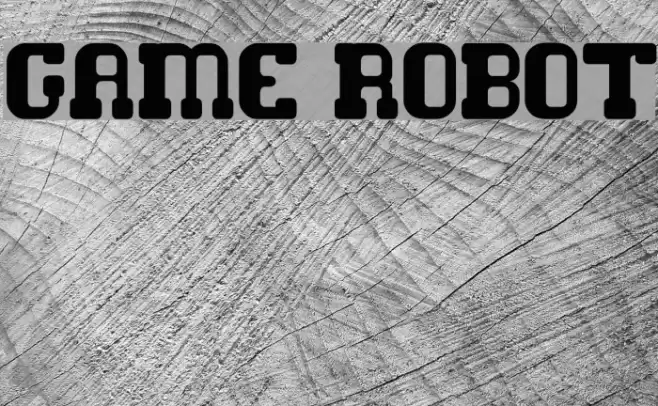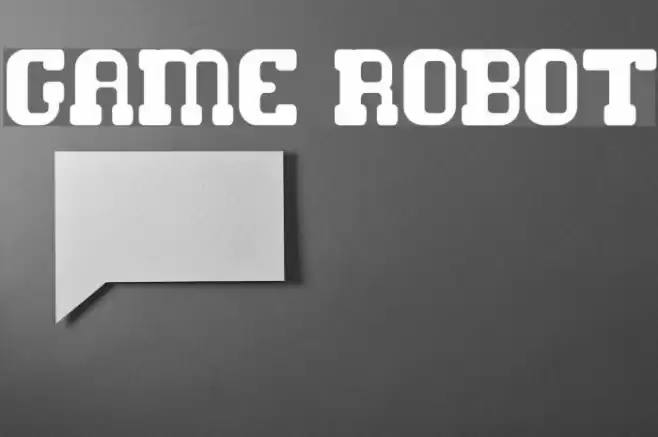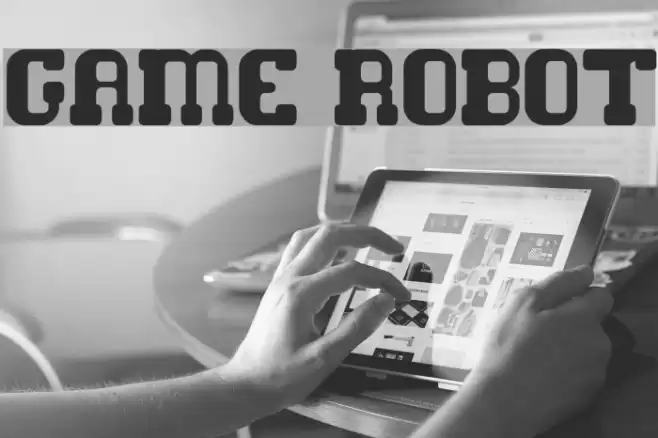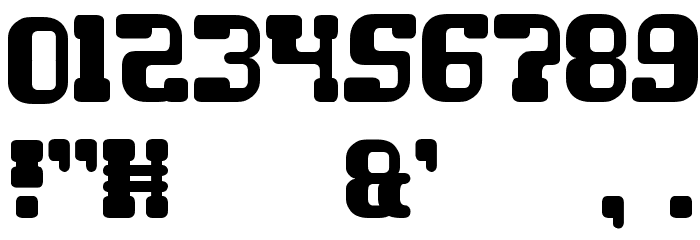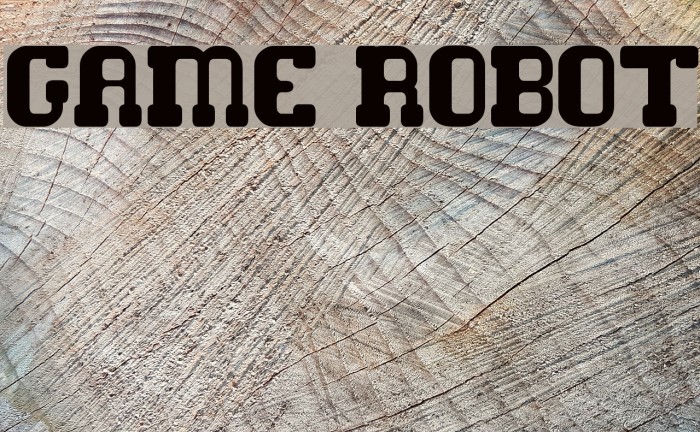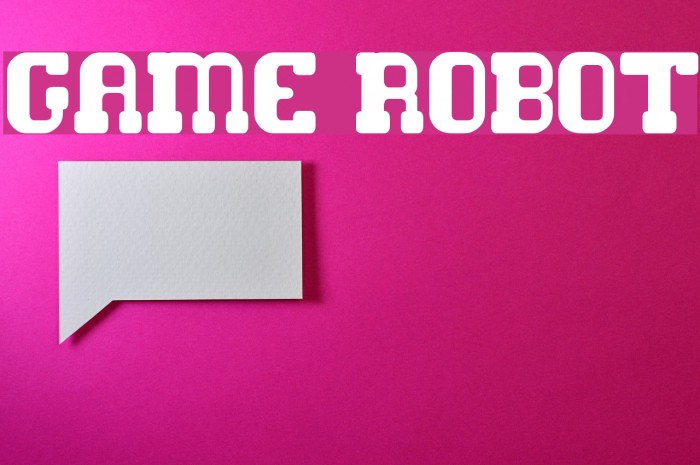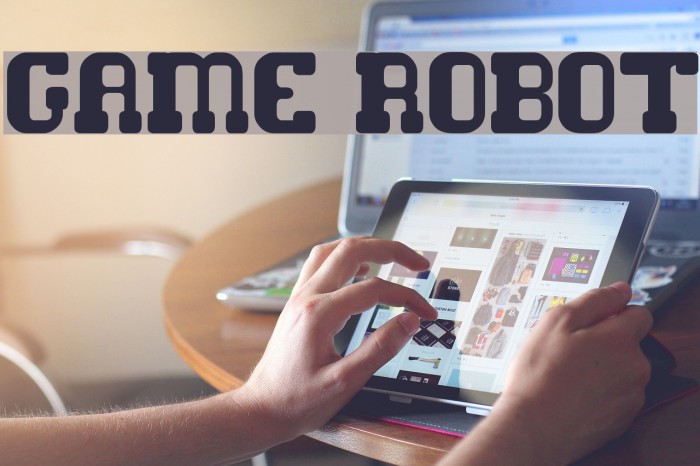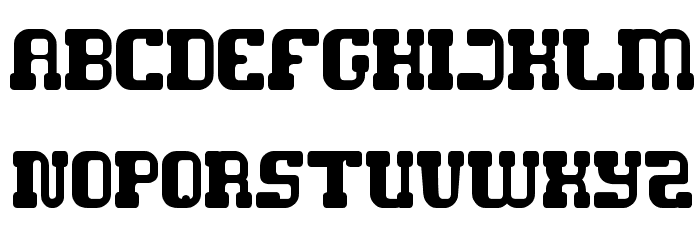
game robot Font
game robot Description
This font features a bold and robust design with strong geometric shapes and rounded edges, giving it a futuristic and mechanical appearance. The characters are uniformly wide, with a consistent stroke thickness that adds to its solid and stable look. The uppercase and lowercase letters maintain a cohesive style, with the lowercase mirroring the uppercase in structure but scaled down. The numerals and special characters follow the same design principles, ensuring a harmonious overall appearance. This font's unique style makes it stand out, suitable for projects that require a modern and industrial feel.
A bold, geometric font with a futuristic and mechanical style from Uncategorized fonts.
- Proposed Projects: Ideal for video game titles, tech branding, posters, and futuristic-themed designs.